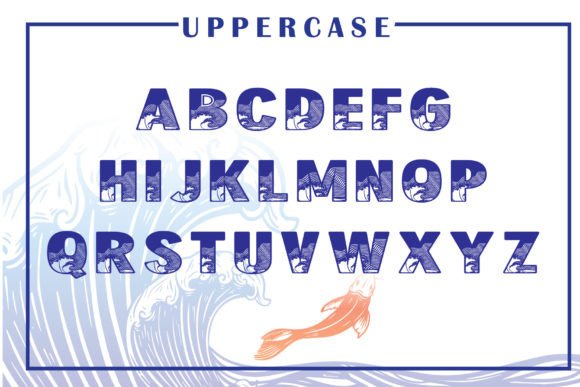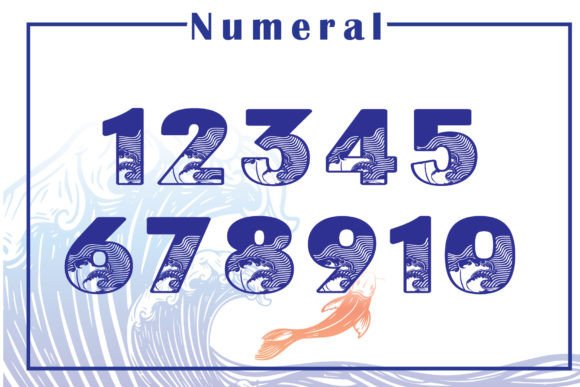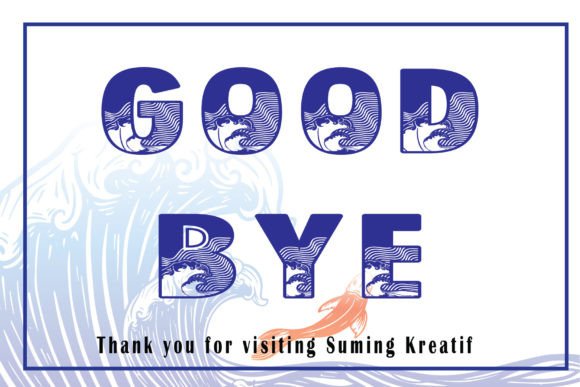
Introducing Heavy Waves Font: The Ultimate Display Font for Bold Designs
Are you tired of using the same old fonts for your designs? Look no further! Heavy Waves Font is here to revolutionize your typography with its abstract and bold display style. This stunning font is perfect for making a statement and adding a touch of sophistication to your designs. In this article, we’ll dive into the features and benefits of Heavy Waves Font, and explore how you can use it to take your designs to the next level.
What is Heavy Waves Font?
Heavy Waves Font is an abstract and bold display font that is designed to make a lasting impression. Its unique and eye-catching style makes it perfect for use on flyers, posters, and any other print materials. The font’s bold and abstract design ensures that your text will stand out from the crowd, grabbing the attention of your audience and leaving a lasting impression.
Key Features of Heavy Waves Font
- Abstract and Bold Design: Heavy Waves Font features an abstract and bold design that is sure to turn heads.
- Display Font: This font is specifically designed for display purposes, making it perfect for use on titles, headings, and other prominent text elements.
- Print-Ready: Heavy Waves Font is optimized for print use, ensuring that your designs look crisp and professional.
Benefits of Using Heavy Waves Font
So, why should you choose Heavy Waves Font for your designs? Here are just a few benefits of using this amazing font:
- Adds Visual Interest: Heavy Waves Font adds a touch of visual interest to your designs, making them more engaging and attention-grabbing.
- Enhances Brand Identity: This font can help to enhance your brand identity, making your designs more recognizable and memorable.
- Versatile: Heavy Waves Font can be used on a wide range of design materials, from flyers and posters to business cards and brochures.
- Time-Saving: With Heavy Waves Font, you can create professional-looking designs in no time, saving you time and effort.
How to Use Heavy Waves Font
Using Heavy Waves Font is easy! Here are a few tips to get you started:
- Pair with Other Fonts: Heavy Waves Font pairs well with other fonts, so don’t be afraid to experiment with different combinations.
- Use on Large Text Elements: This font is designed for display purposes, so use it on large text elements like titles and headings.
- Experiment with Colors: Heavy Waves Font looks great in a variety of colors, so don’t be afraid to experiment and find the perfect hue for your design.
Design Ideas Using Heavy Waves Font
So, what can you create with Heavy Waves Font? Here are a few design ideas to get you started:
- Eye-Catching Flyers: Use Heavy Waves Font to create eye-catching flyers that grab the attention of your audience.
- Bold Posters: This font is perfect for creating bold and eye-catching posters that make a lasting impression.
- Professional Business Cards: Heavy Waves Font can be used to create professional-looking business cards that showcase your brand identity.
In conclusion, Heavy Waves Font is an amazing display font that is perfect for designers and crafters looking to add a touch of sophistication to their designs. With its abstract and bold design, this font is sure to make a lasting impression on your audience. Whether you’re creating flyers, posters, or business cards, Heavy Waves Font is the perfect choice. So why wait? Download Heavy Waves Font today and take your designs to the next level!